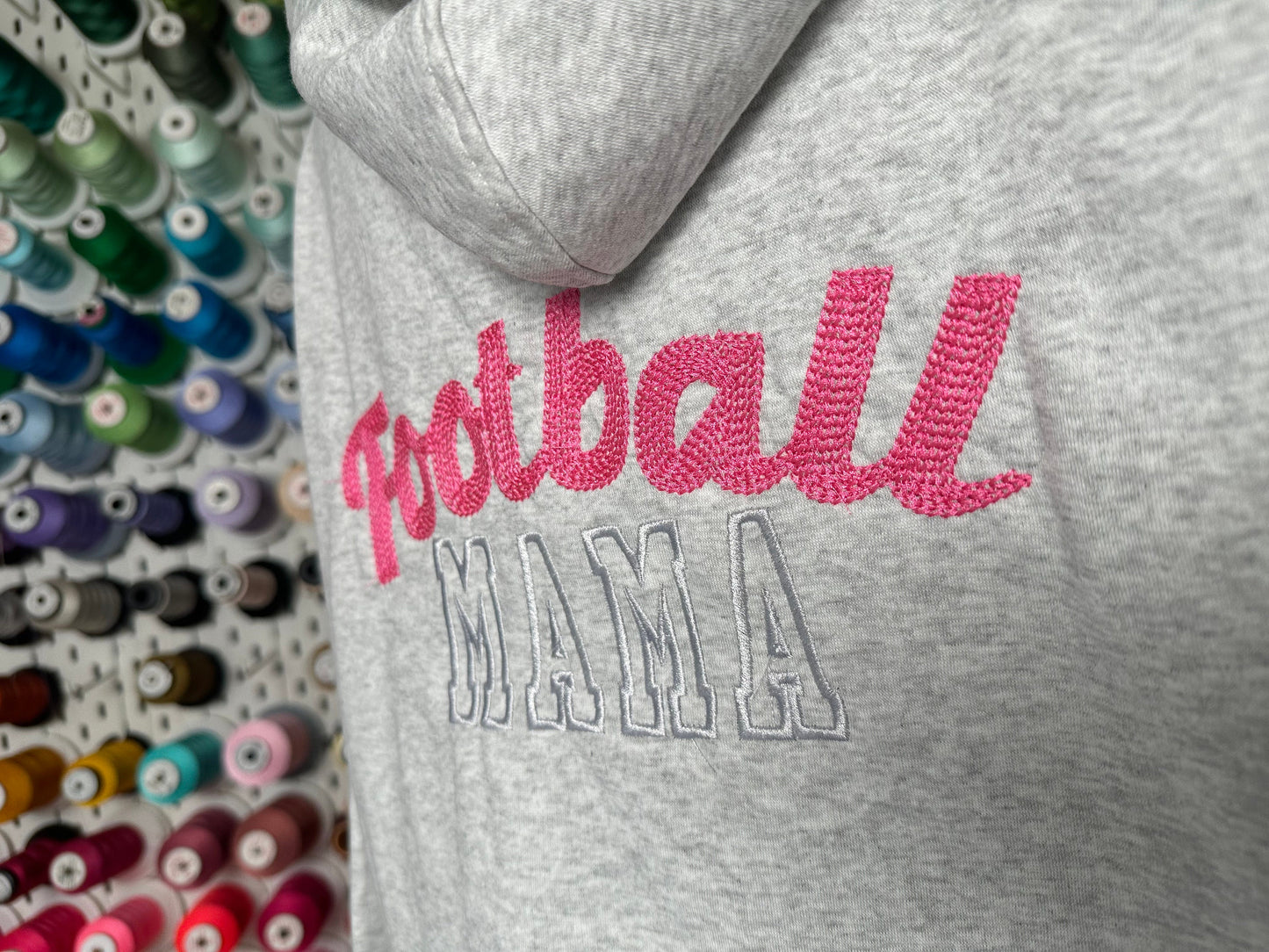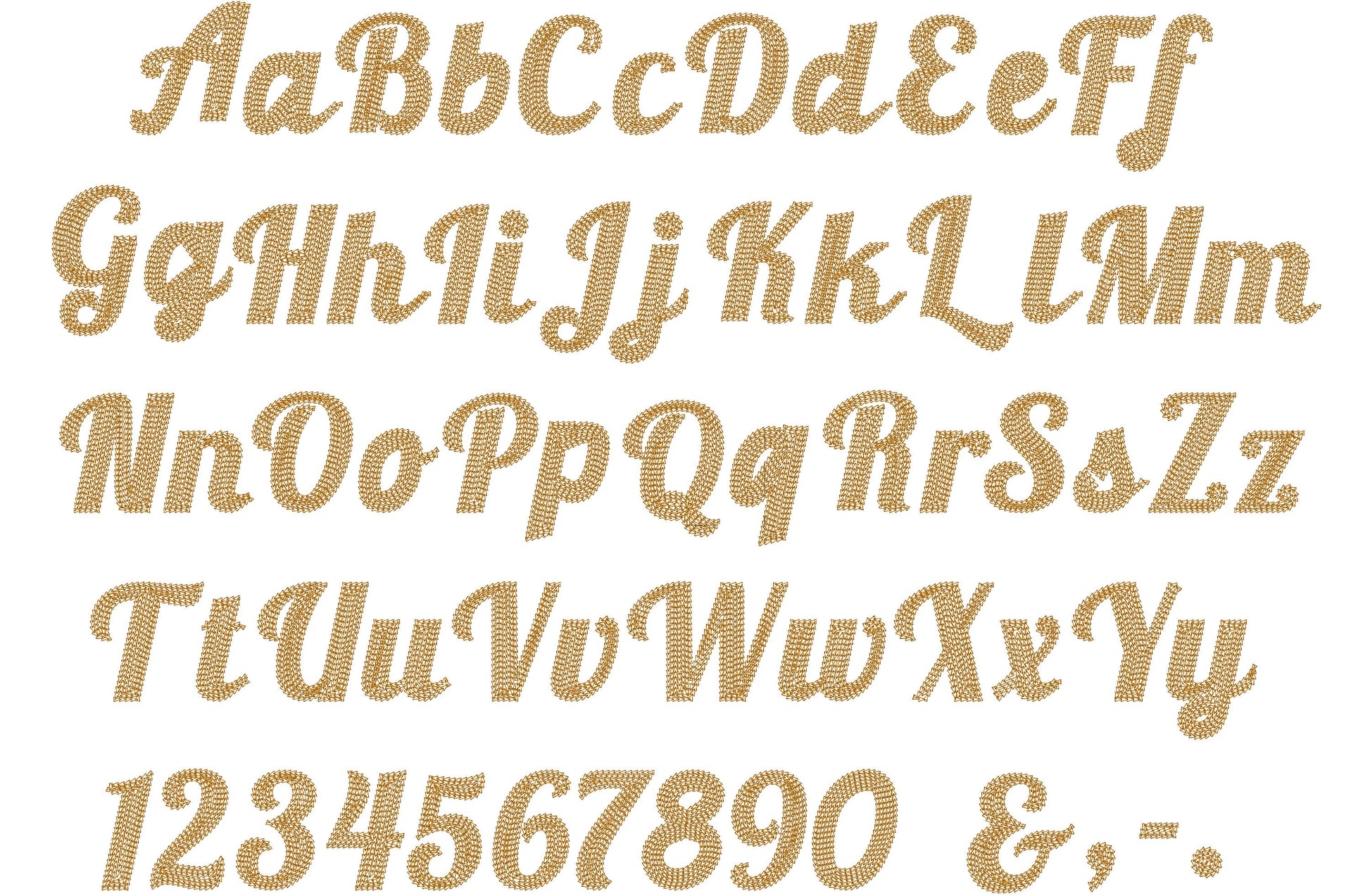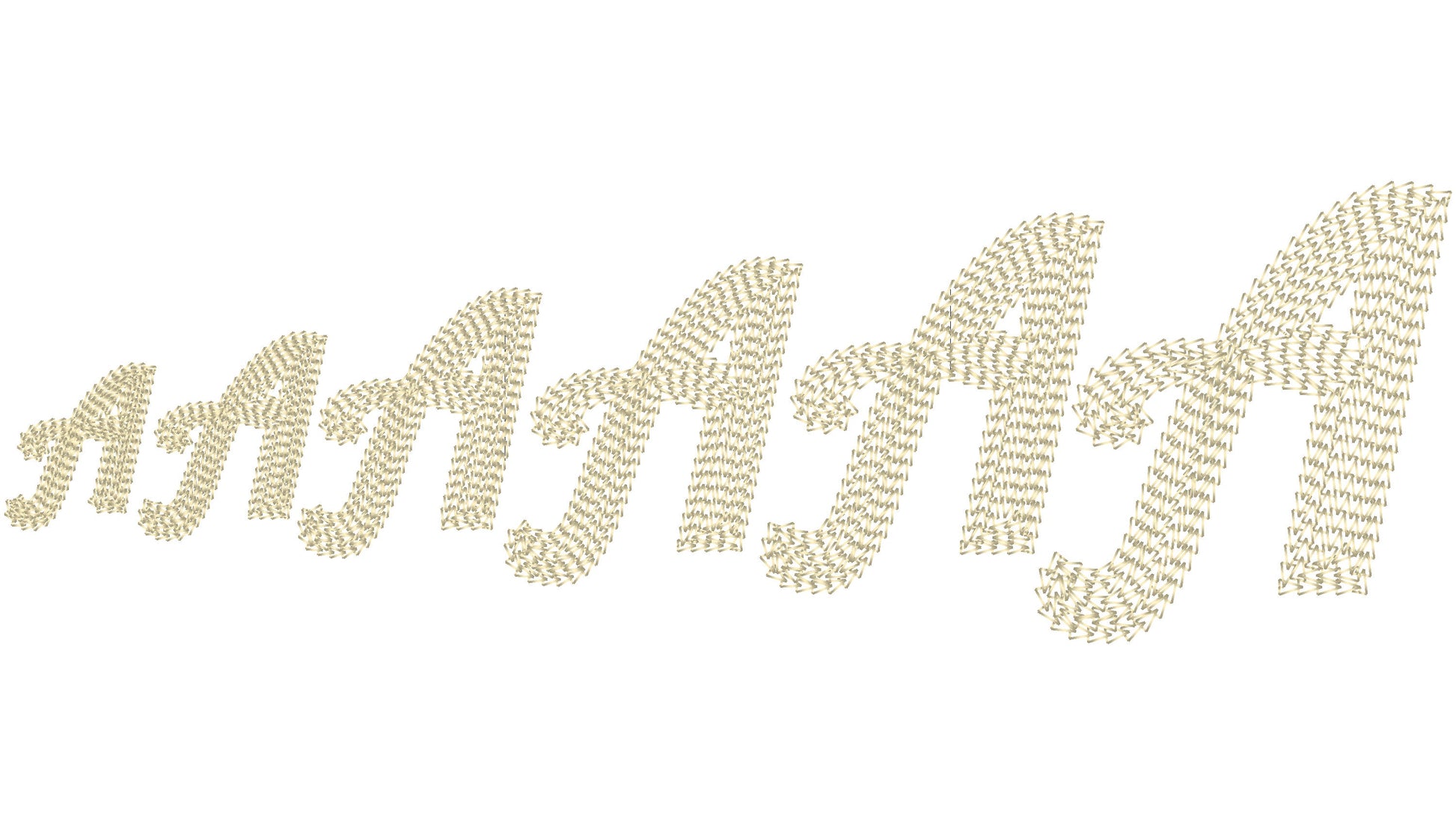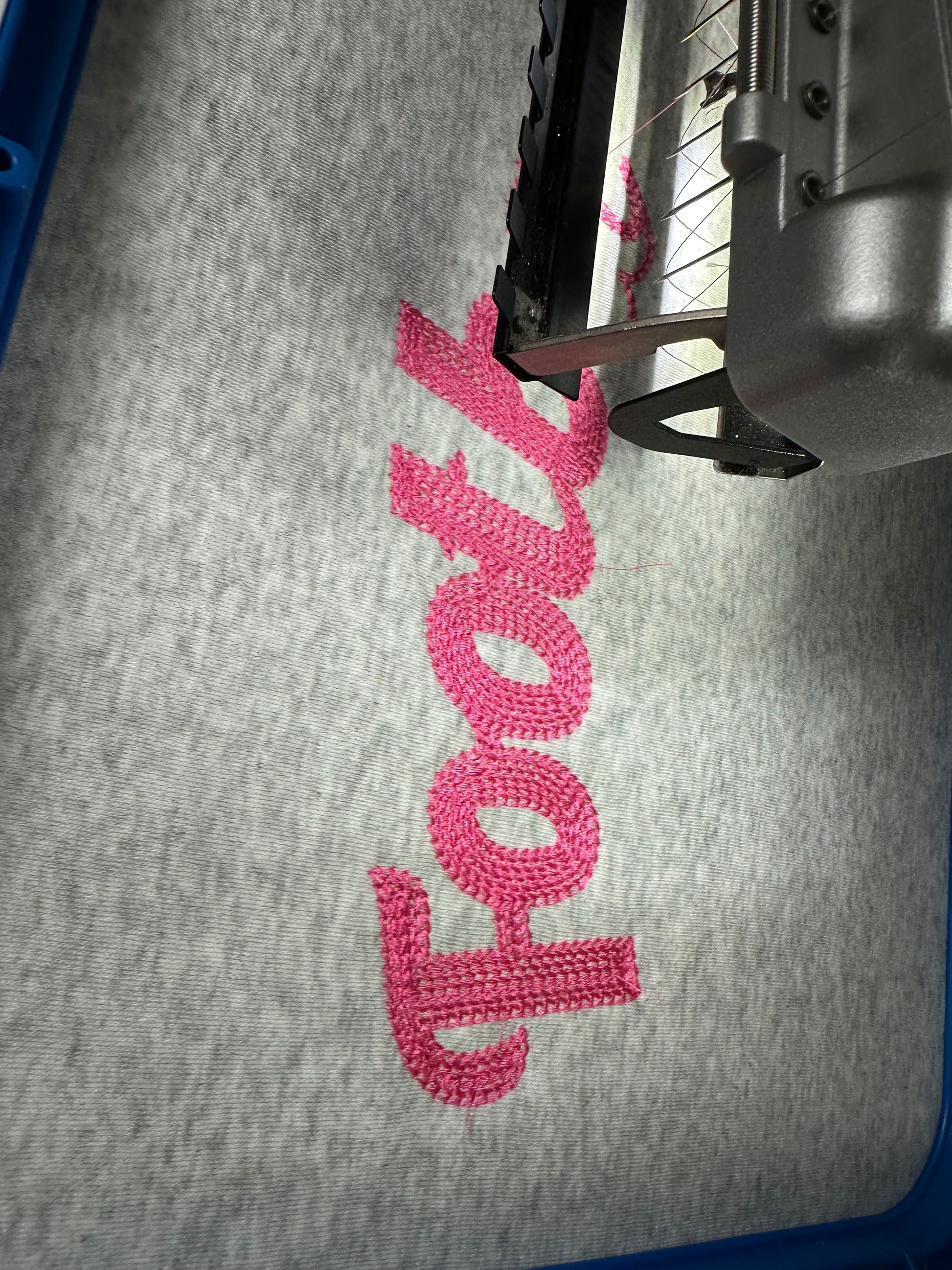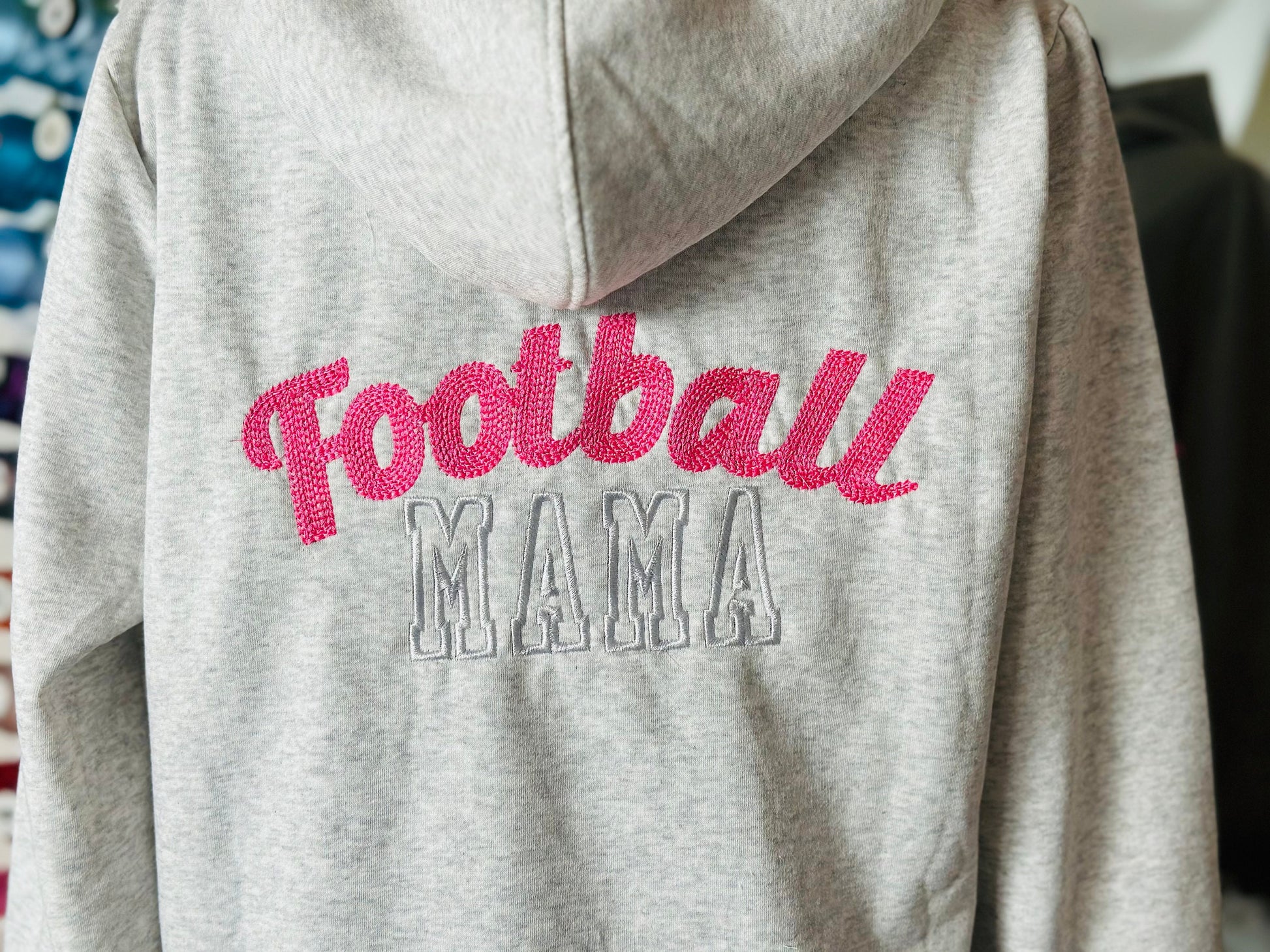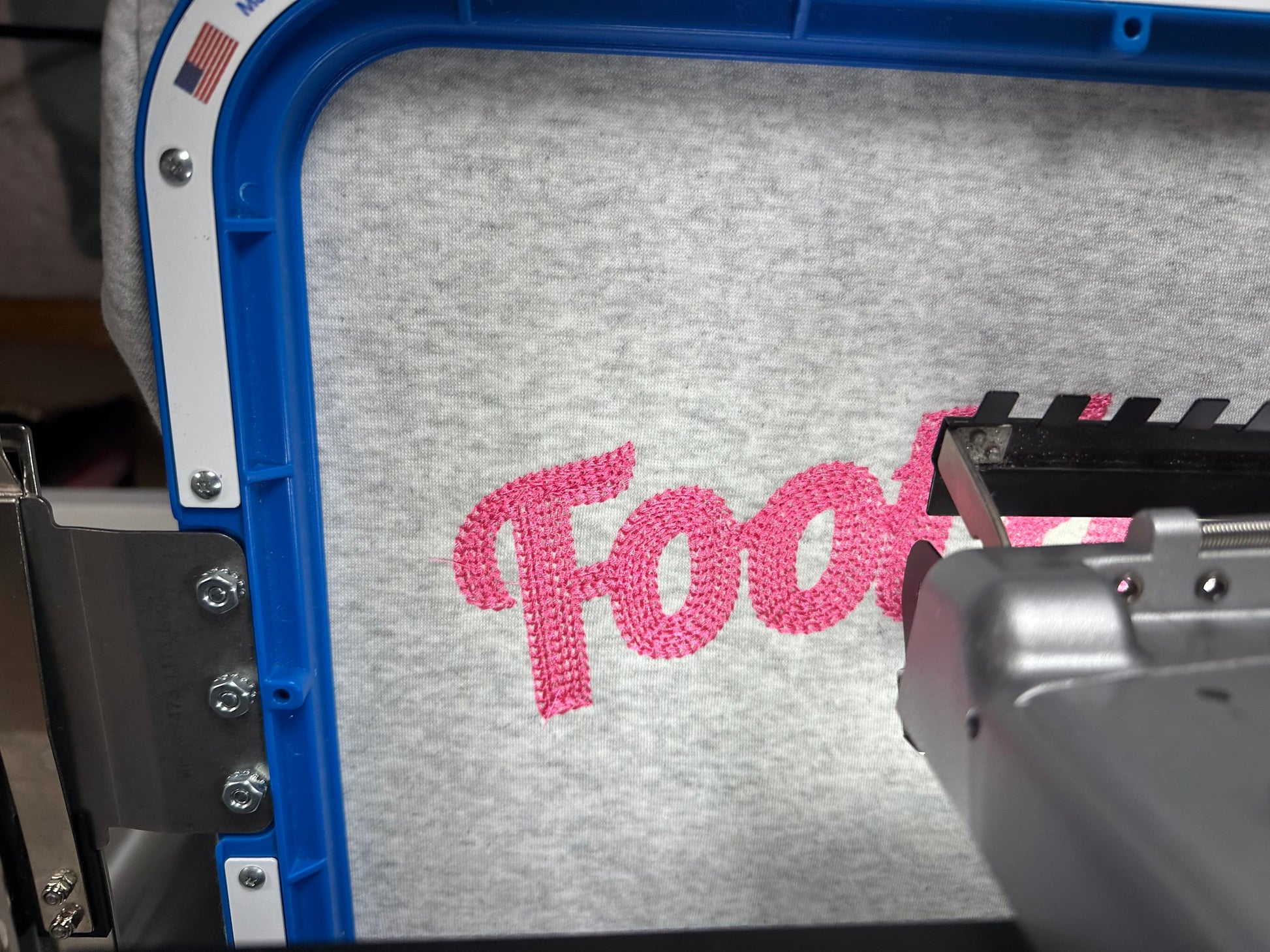
Cursive Chain Fill Font
Or click to open the linkA cursive script filled with chain stitch for a hand-embroidered look. Lovely for names, monograms and sayings on sweatshirts, towels and gifts.
- Cursive chain fill script, uppercase and lowercase
- Numbers 0 to 9 and punctuation